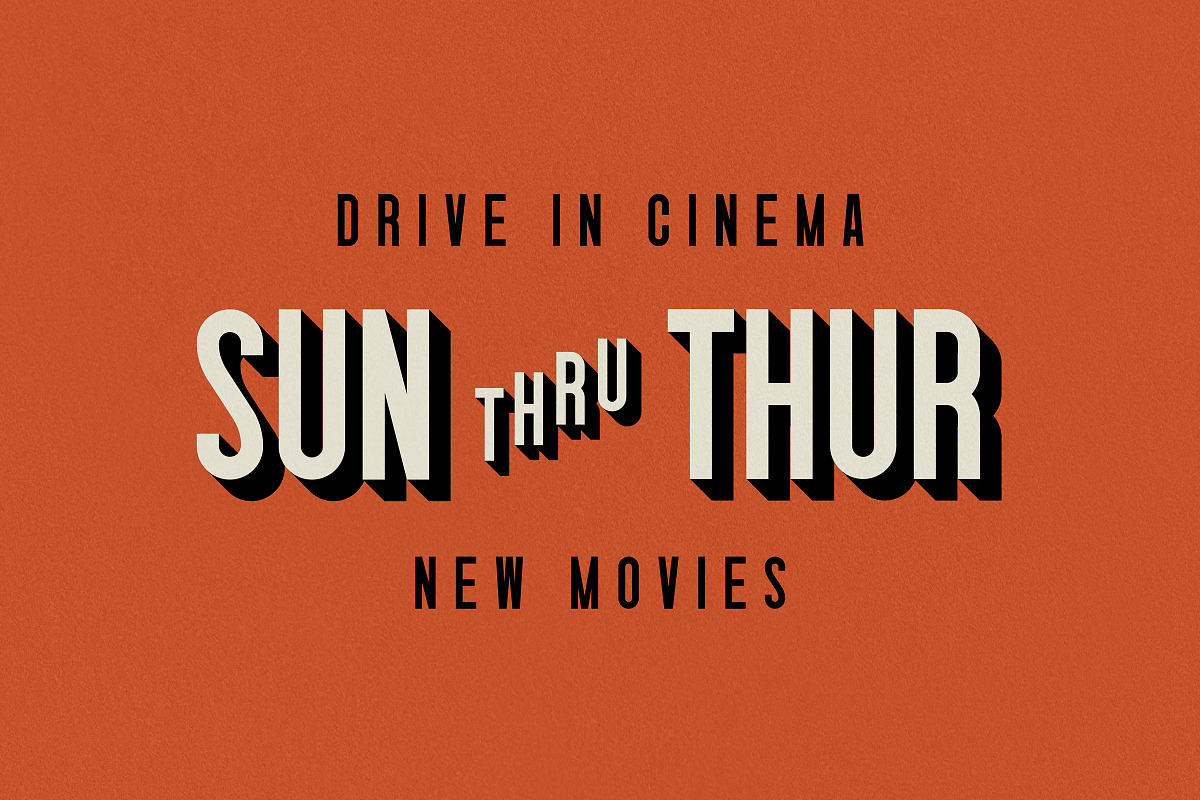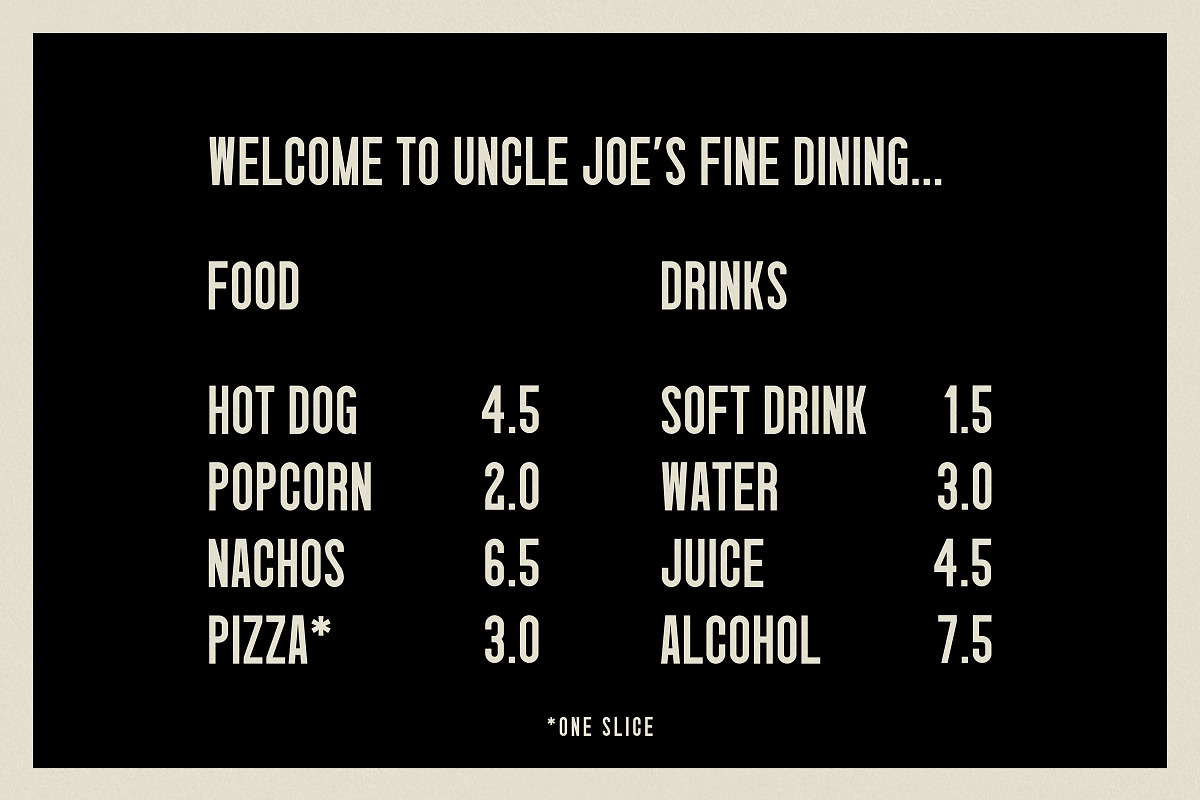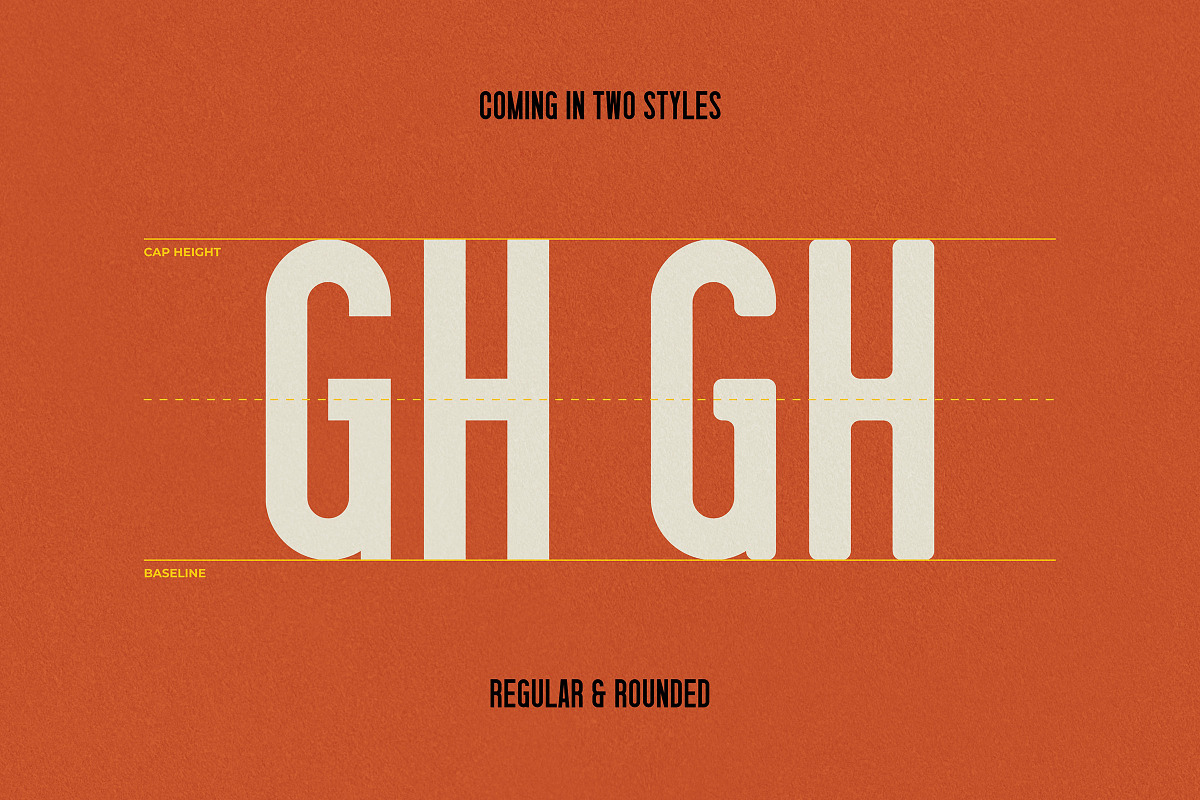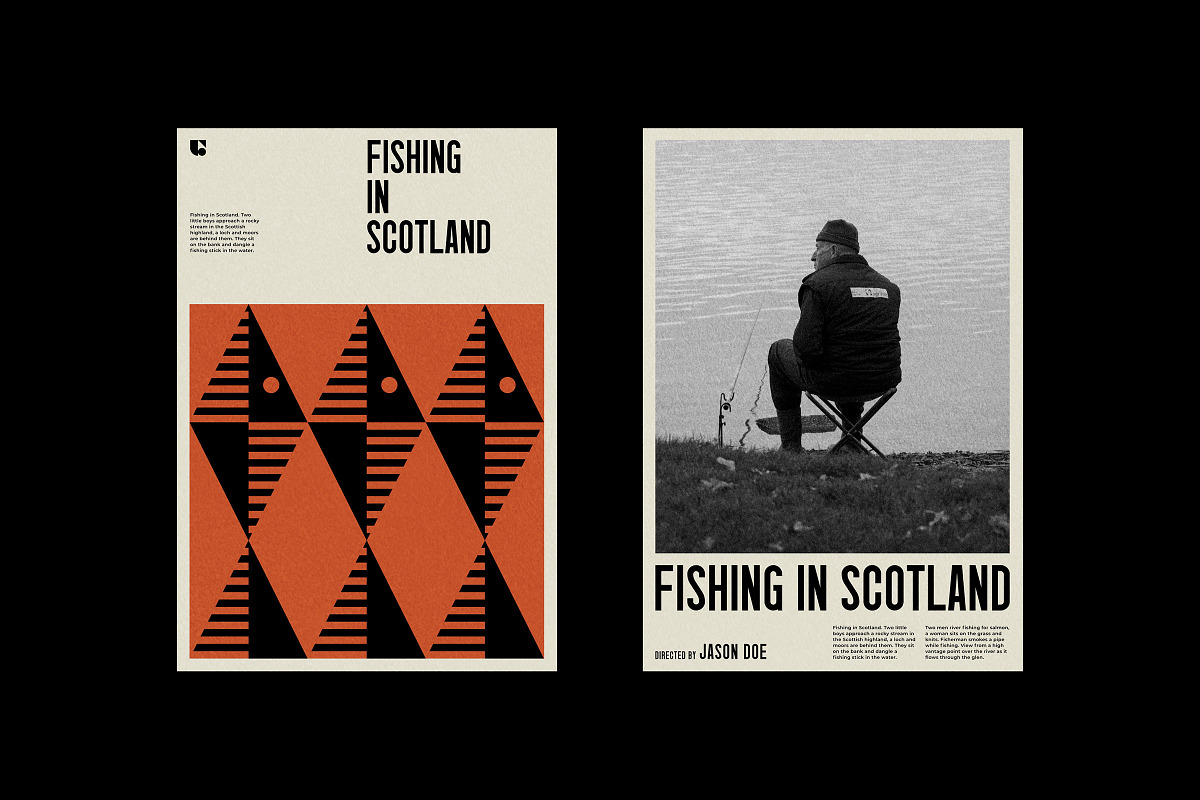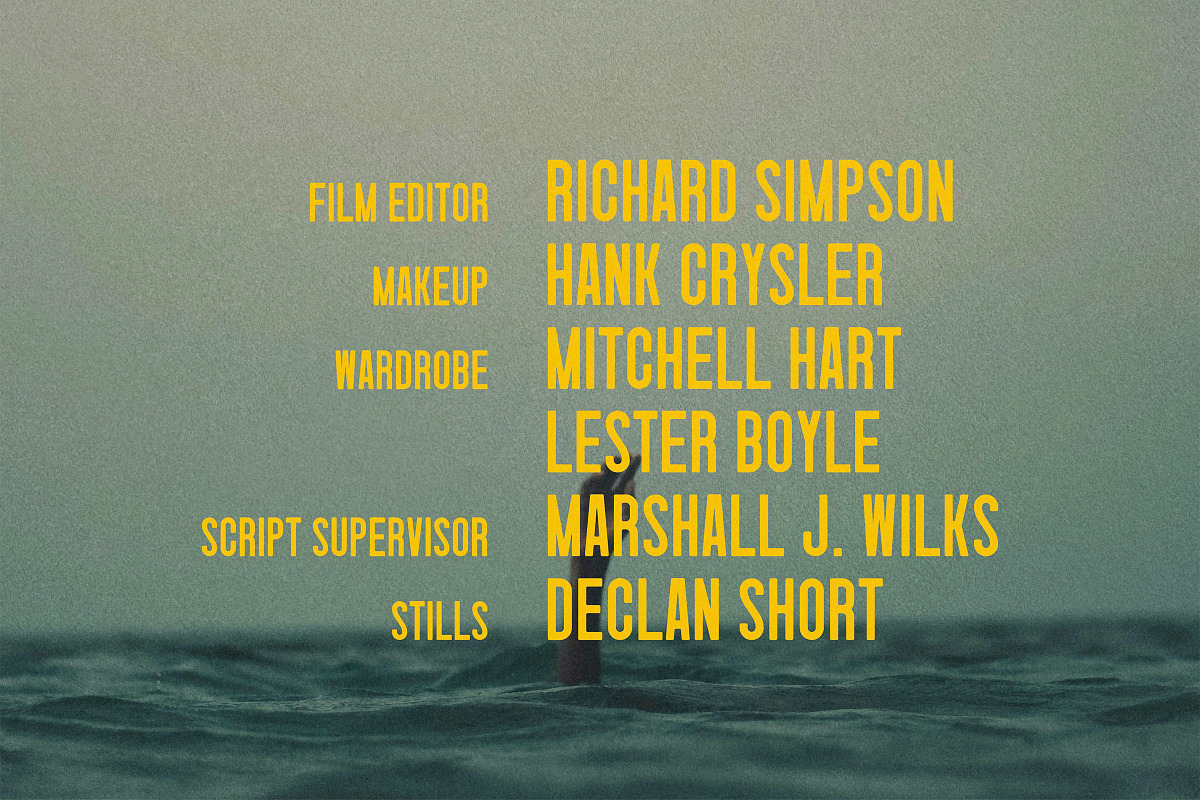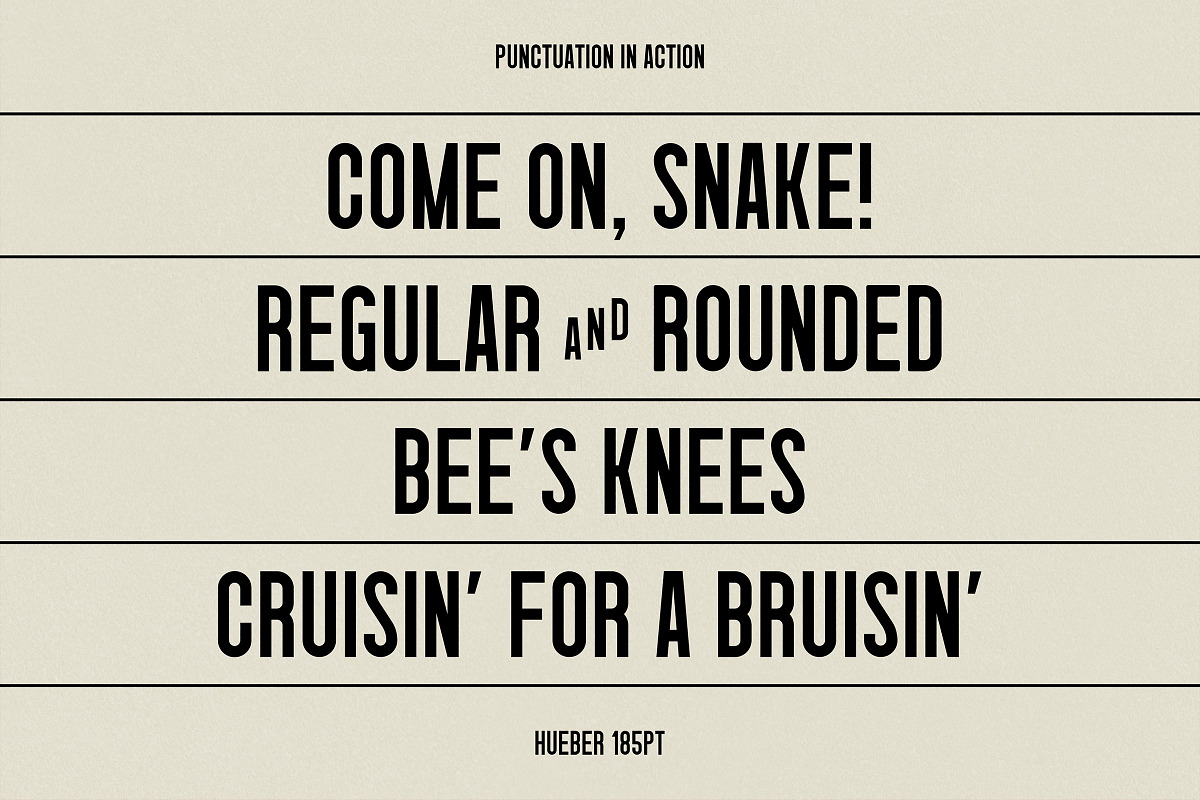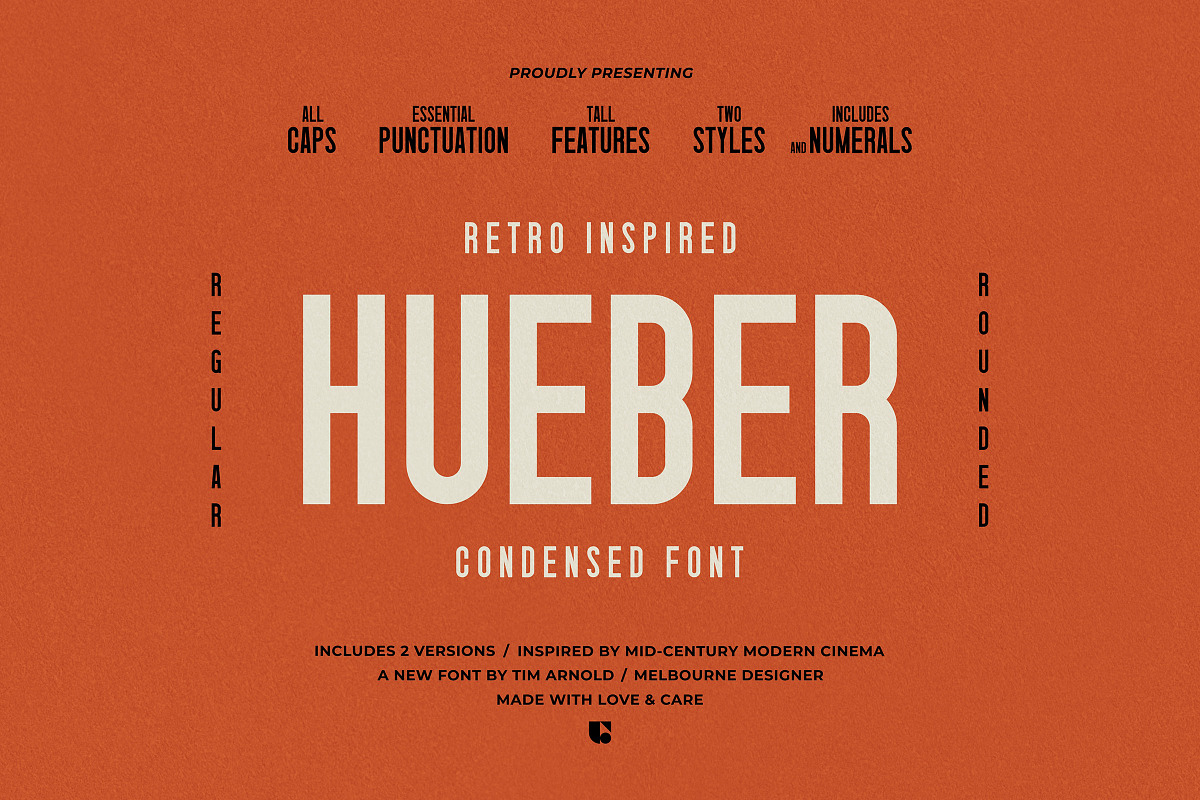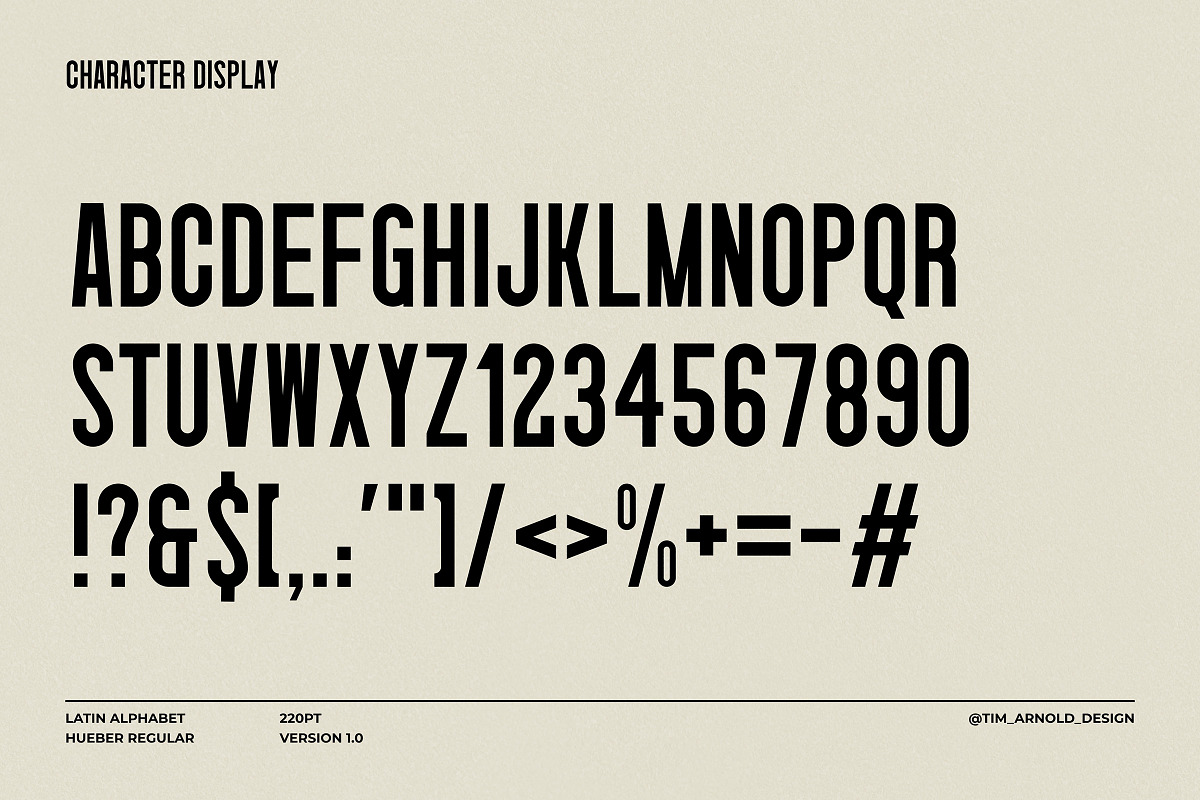
Hueber - Retro Condensed Sans
Introducing Hueber! A condensed sans serif, that's inspired by retro cinema displays from the 1950's & 60's. Designed for modern day usage, its tall features and consistent character height, are reflective of a simpler time where theatres would manually alter signs and billboards to showcase upcoming films or sessions.
Hueber comes in both a regular and rounded version, making it an ideal choice for any display scenario. Perfect for adding a retro-modern feel to any signs, movie titles, credits, headlines, logos, branding, layouts, typographic posters and more.
- Uppercase Letters
- Numbers & Essential Punctuation
- Rounded & Regular Version